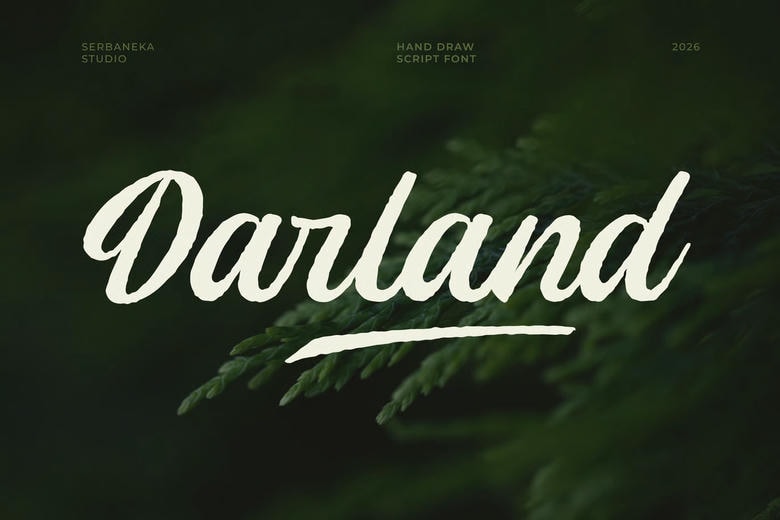
Darland Font
Darland Script Font -Hand draw script font is a bold and expressive hand-drawn script font that makes your designs warm, full of flavor, personalized, and expressive. Its natural brush strokes, rounded edges, and slightly rough edges provide a sense of a hand made font that is ideal in branding food and lifestyle brands.
Foodie is designed with a catchy headline, appealing to the eyes on the menus, packaging, posters, and graphics on social media, and it has a friendly and inviting appearance. This font brings a tasty handwriting touch to your project whether you are designing a cafe, restaurant, food truck, bakery or a recipe blog.
Darland Handwritten Script Font